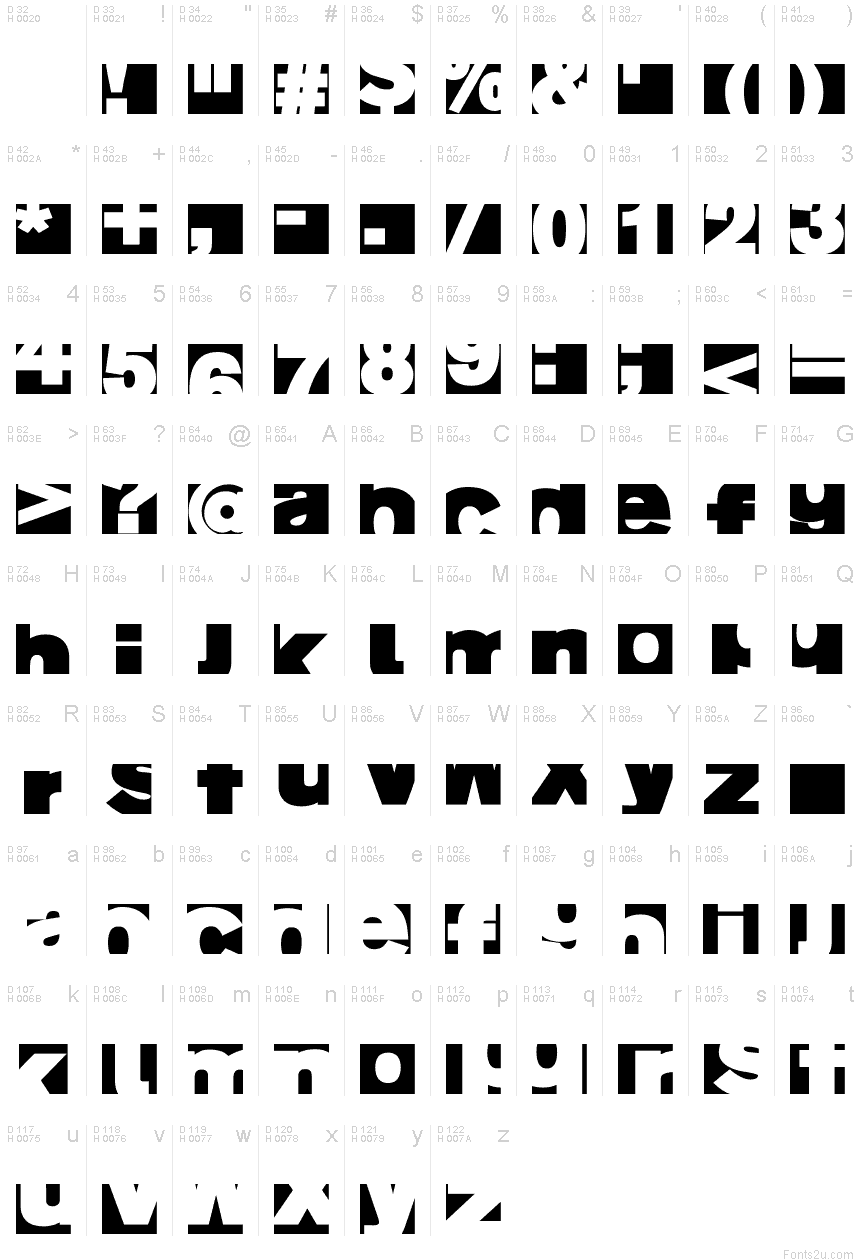
AIFragment
AI Fragment font by Alphabets is a free experimental display typeface that looks like it’s been sliced out of solid ink. Bold, chunky shapes collide with carved-out gaps, so letters feel both heavy and glitchy, like a poster that’s been torn and perfectly reassembled. The rhythm is tight and energetic, giving headlines a strong horizontal pull while those broken curves keep the eye moving.
Using AI Fragment, you get a loud, contemporary voice that shines on gig posters, underground event flyers, album covers, motion title cards, editorial openers, and experimental brand wordmarks. This free font thrives at large sizes where its cut-out forms can really breathe; pair it with a clean grotesque or neo-grotesque for body text to keep layouts readable while the main message hits hard.